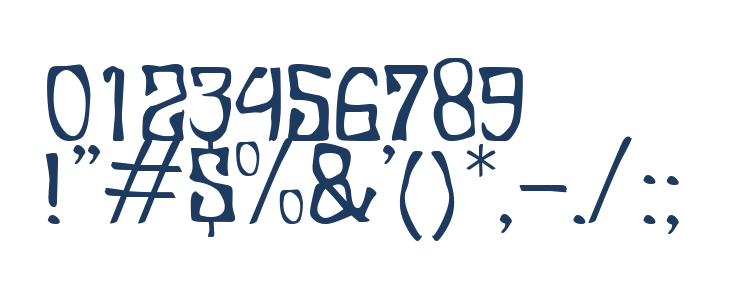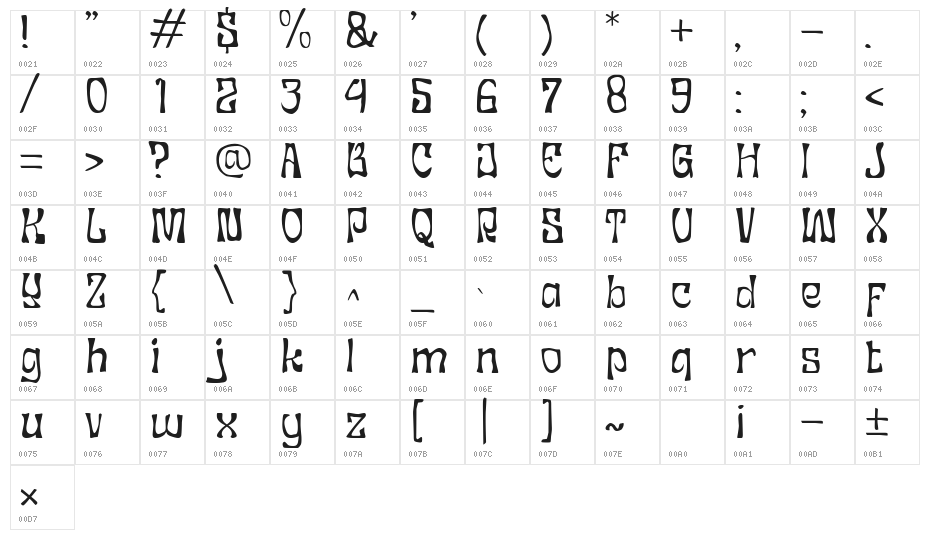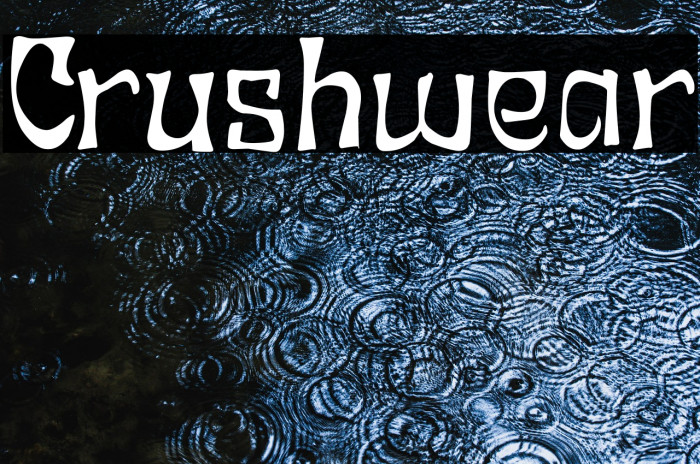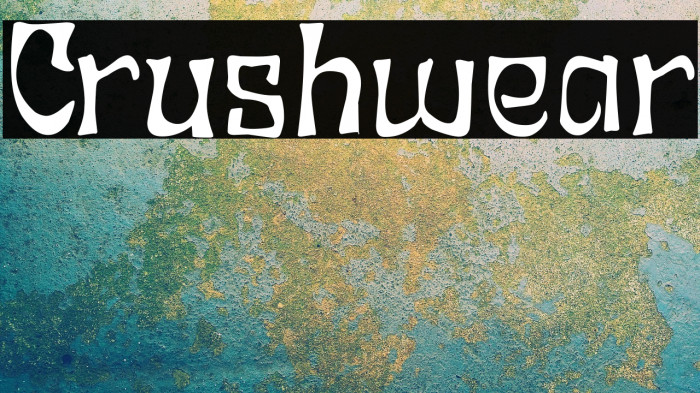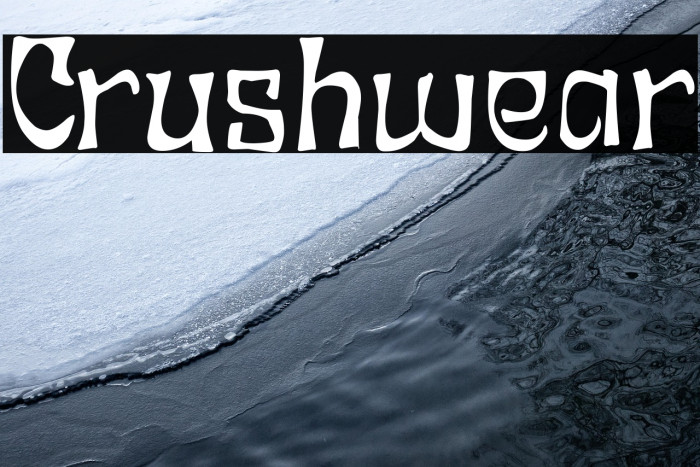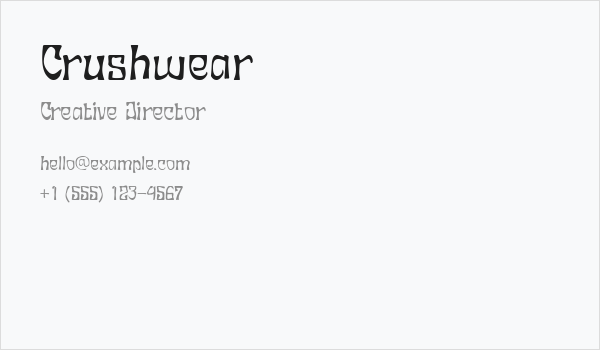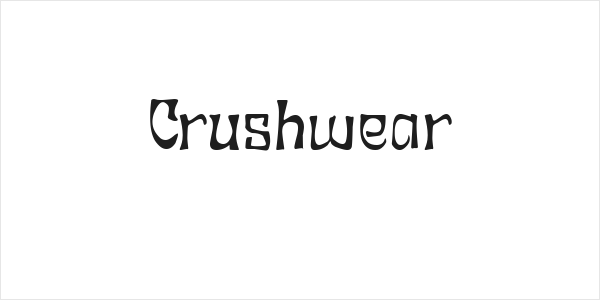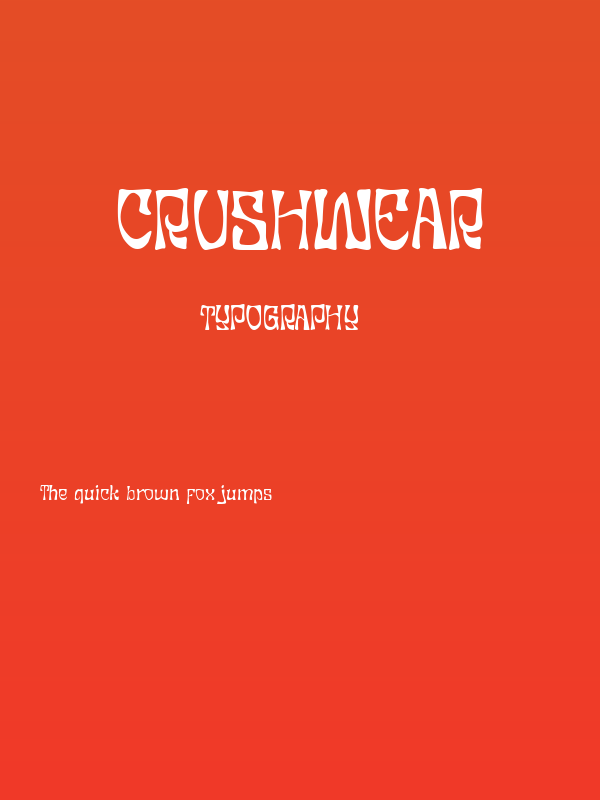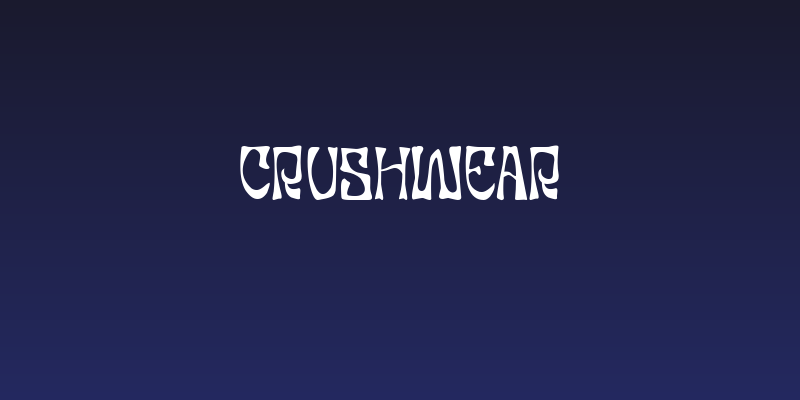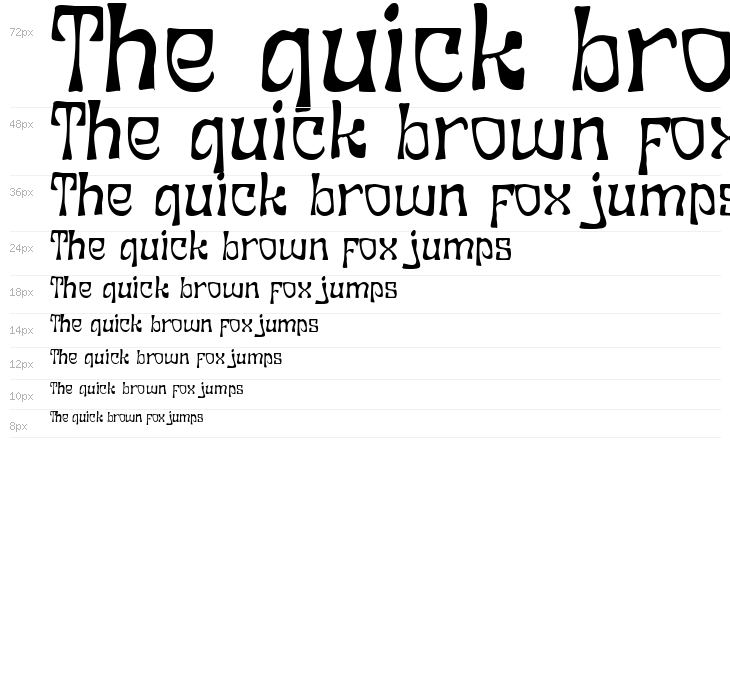
Crushwear Font
Crushwear Description
This font features a bold, artistic style with a hand-drawn appearance. The letters have an irregular, playful form, giving them a unique and creative look. The uppercase and lowercase characters maintain a consistent style, with exaggerated curves and varying line thicknesses that add to its whimsical charm. The numbers and special characters follow the same artistic theme, making the font versatile for various creative projects. Its distinct personality makes it stand out, ideal for designs that require a touch of individuality and flair.
Proposed ProjectsIdeal for creative projects such as posters, album covers, children's books, and branding that requires a unique and playful touch.